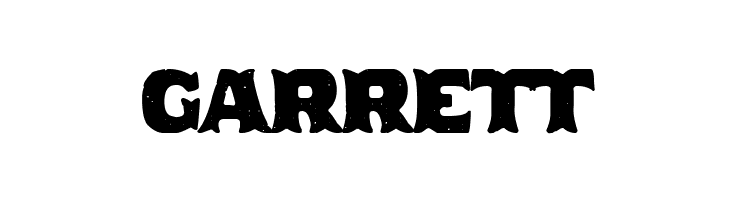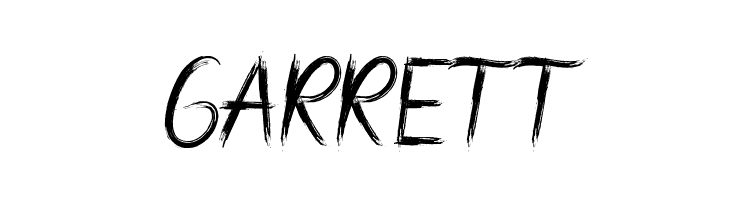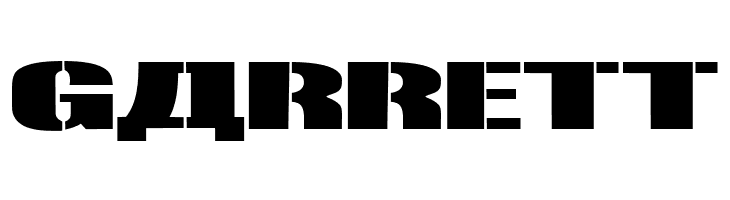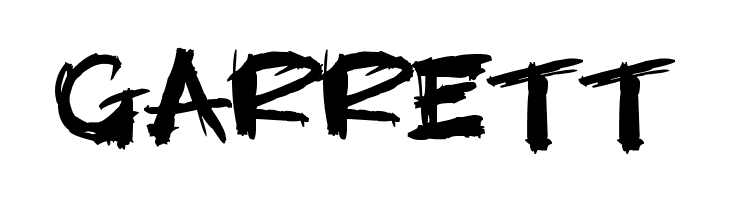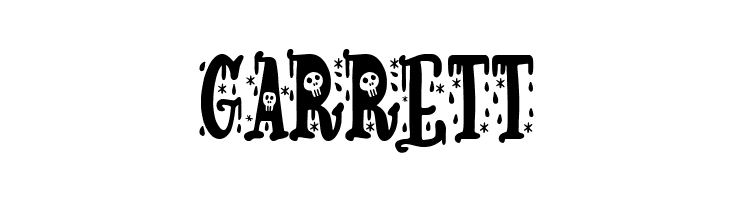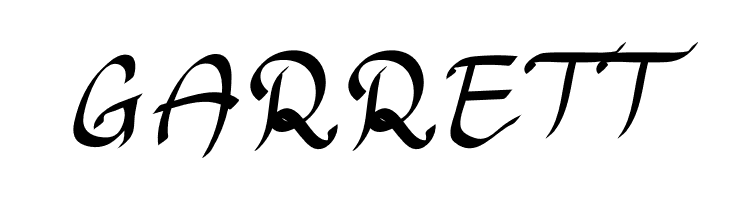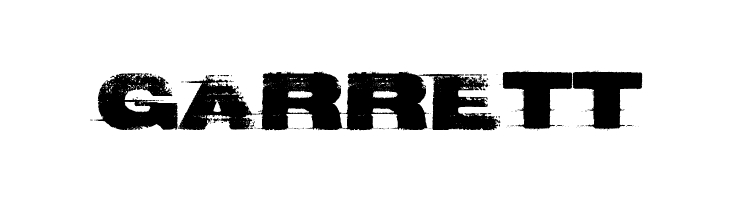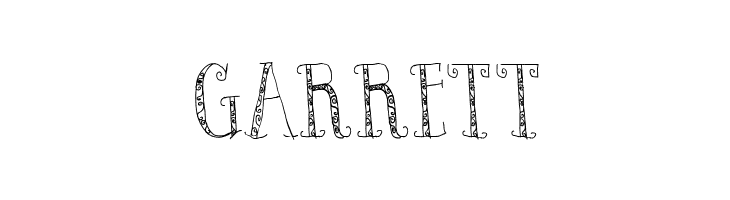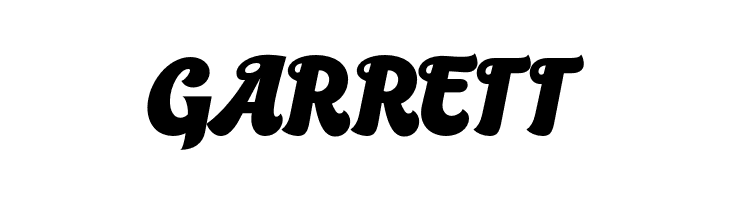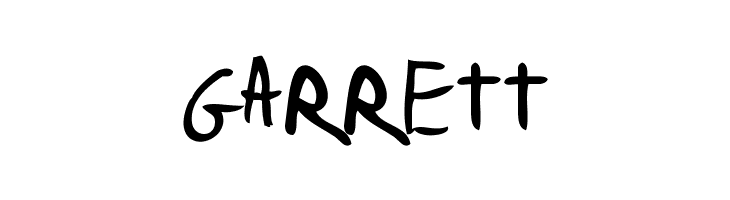
A bold, decorative font with a 3D sketch effect and rugged outlines.
A playful, bacon-themed decorative font with a hand-drawn style.
A hand-drawn, textured font with a rustic and organic feel.
A clean, modern sans-serif font with balanced proportions and consistent stroke width.
A bold, dynamic script font with a handwritten appearance.
A bold, brushstroke-style font with a dynamic and expressive appearance.
A geometric, angular font with a futuristic and edgy design.
A bold, rugged font with a hand-drawn, distressed appearance.
A bold, condensed font with a geometric and modern style.
A bold, condensed, and italicized font with a geometric and modern style.
A bold, angular font with a modern, rebellious style.
A bold, cursive script font with dynamic, sweeping strokes.
A bold, expressive brush-style font with a raw, artistic appearance.
A bold, brush-style font with an energetic, hand-painted look.
A bold, distressed font with a grunge aesthetic and textured appearance.
A playful, handwritten italic font with rounded characters and consistent stroke width.
A bold, three-dimensional font with a strong, blocky design.
A bold, distressed font with a grunge aesthetic and textured appearance.
A bold, brush-style font with a casual and energetic vibe.
A playful, informal handwritten style with bold, irregular strokes.
A playful, handwritten-style font with uneven strokes and a casual vibe.
A bold, quirky display font with irregular, playful shapes.
A bold, brush-style font with dynamic, hand-painted strokes.
A whimsical, decorative font with intricate swirl patterns.
A bold, slightly italicized font with a modern and dynamic style.
A bold, edgy font with sharp, jagged edges and a rebellious, grunge-like style.
A bold, dripping font with a dramatic and edgy style.
A bold, playful script font with rounded, slanted characters.
A bold, decorative font with playful skull and star embellishments.
A playful, casual handwritten font with smooth, flowing lines.